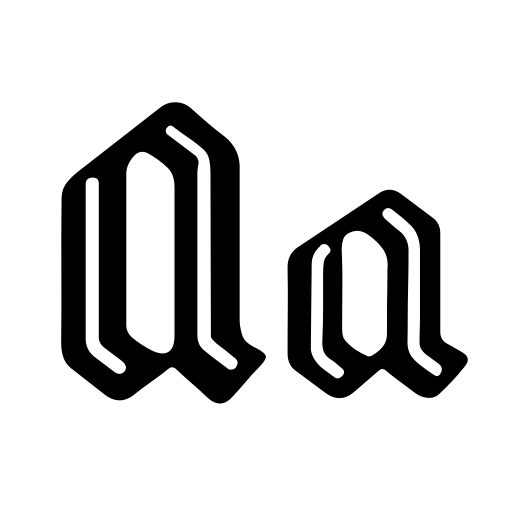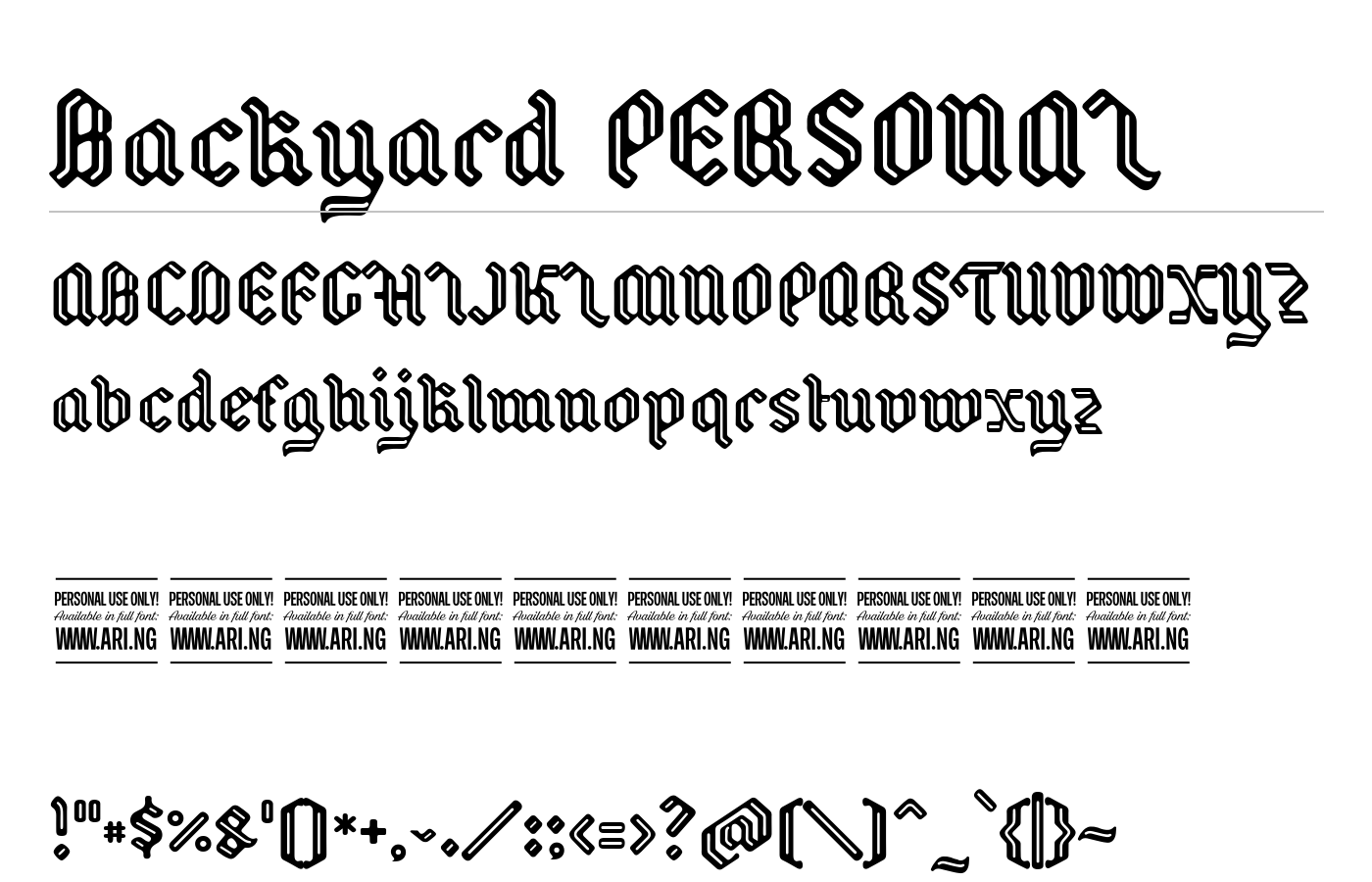
Backyard PERSONAL is a bold, blackletter-inspired serif font with a striking Gothic style, featuring sharp, angular strokes and solid, blocky letterforms. Its high contrast and intricate details evoke a vintage, medieval feel, making it ideal for decorative headlines, logos, or designs that want to convey a strong, historic, or edgy personality. This font works best in projects where a dramatic, ornamental touch is desired, such as posters, branding for alternative or heritage-focused brands, and artistic editorial layouts.
Backyard PERSONAL Font
About Backyard PERSONAL Font